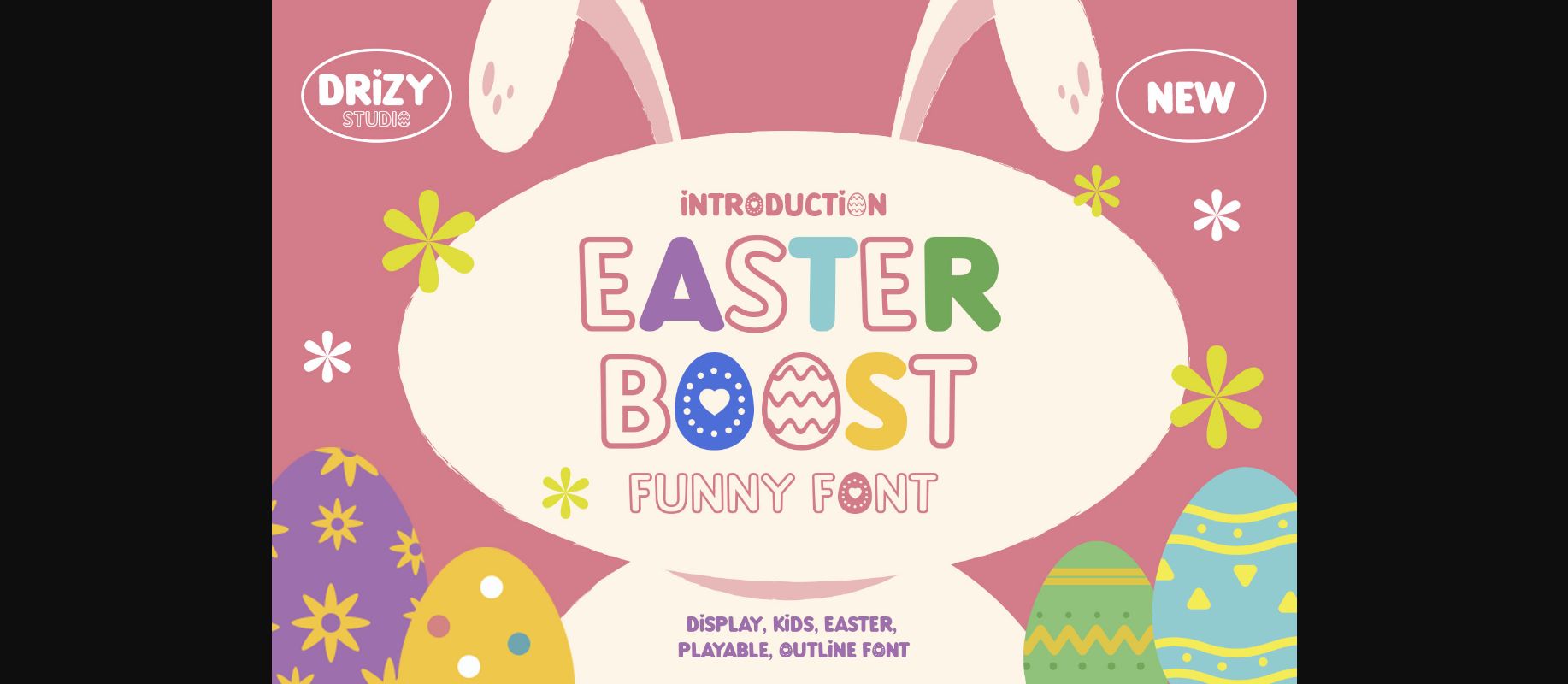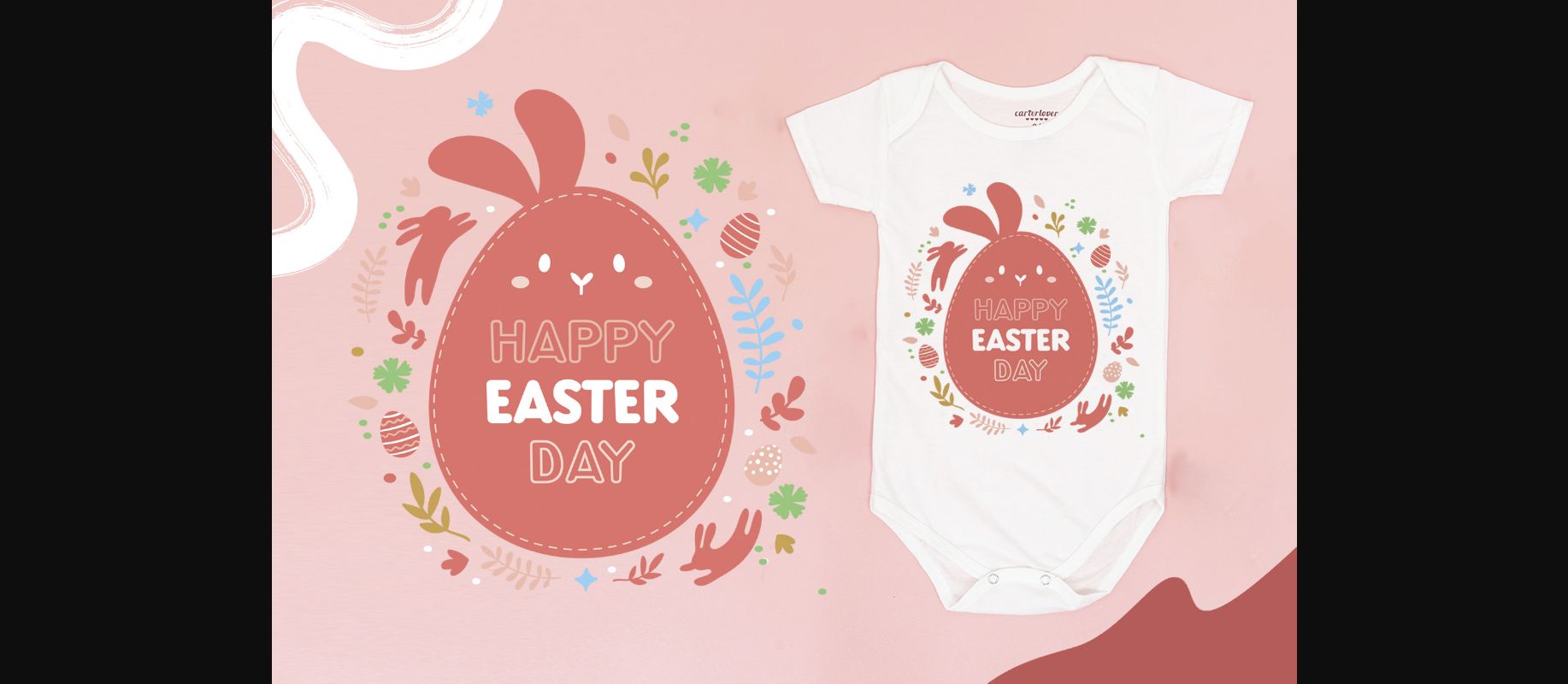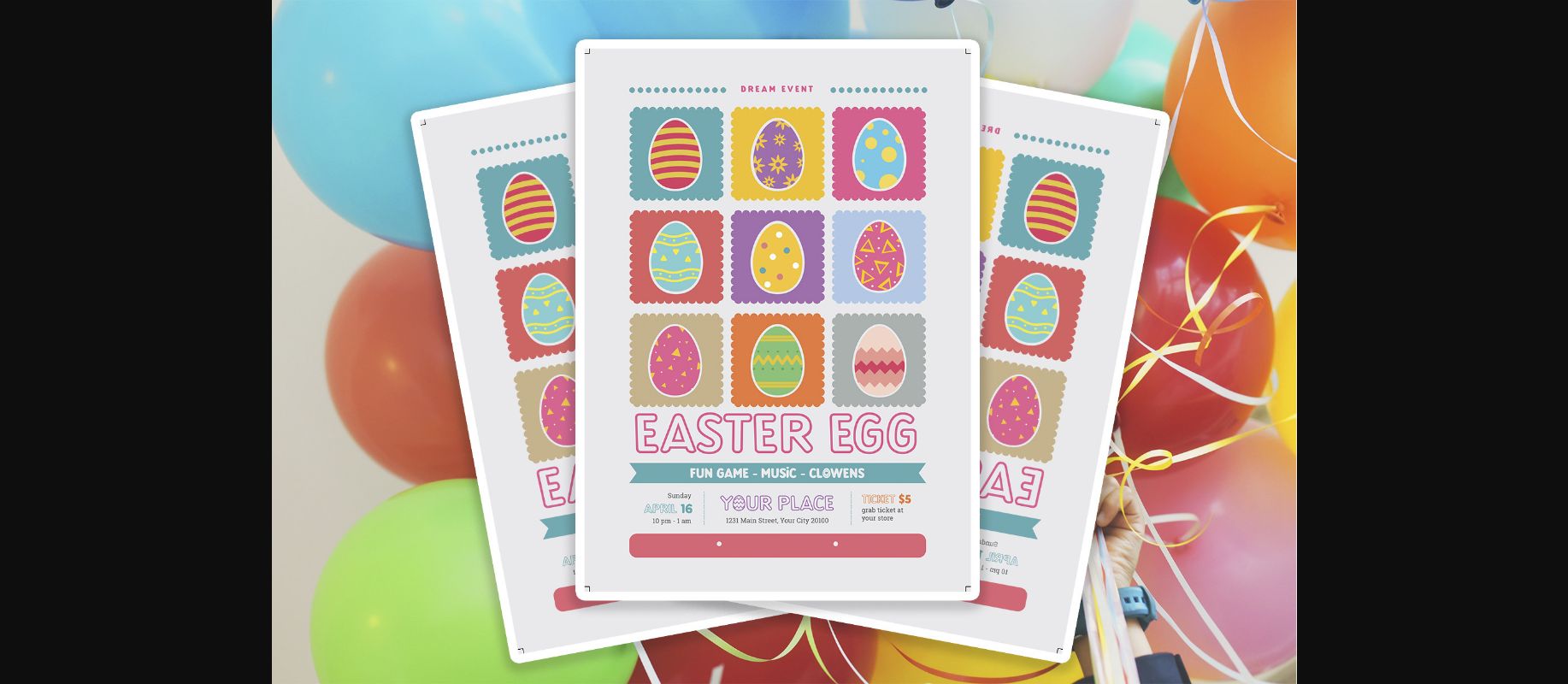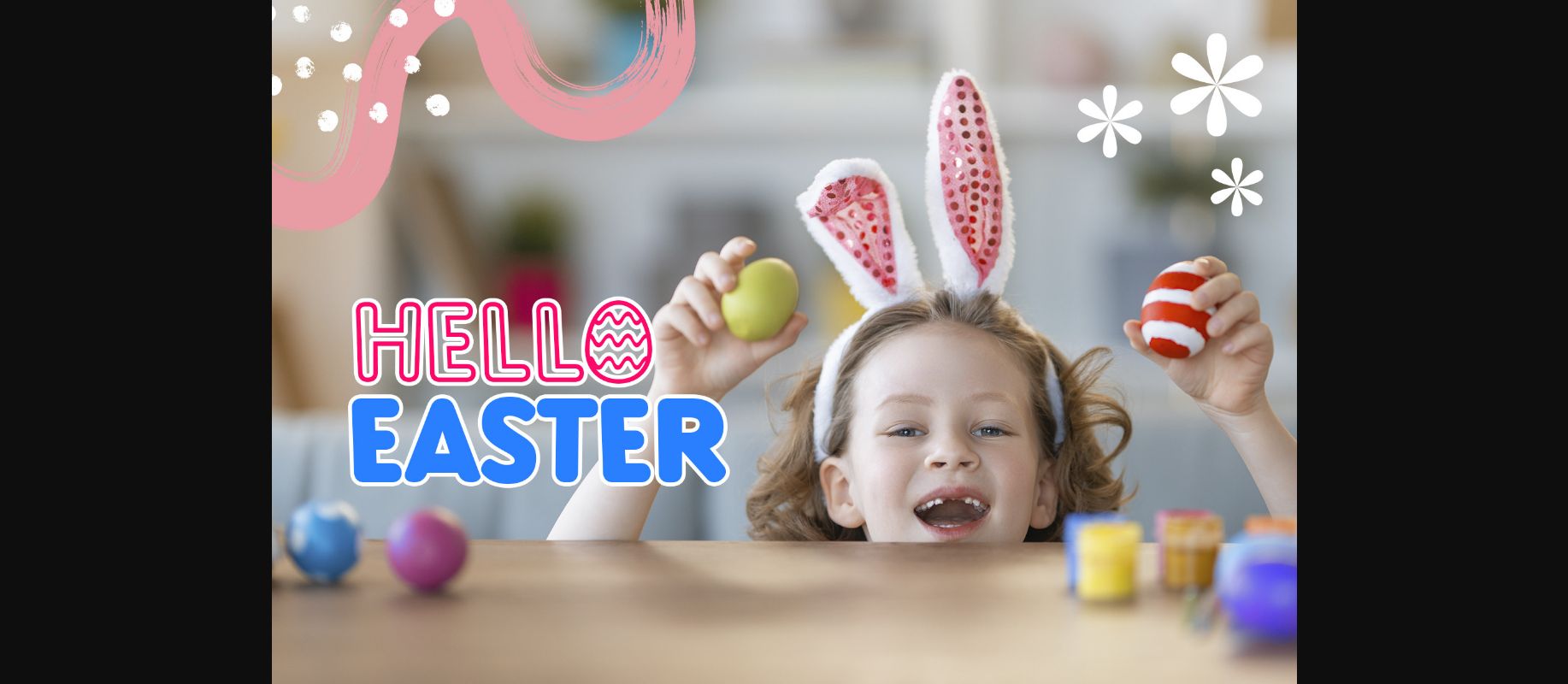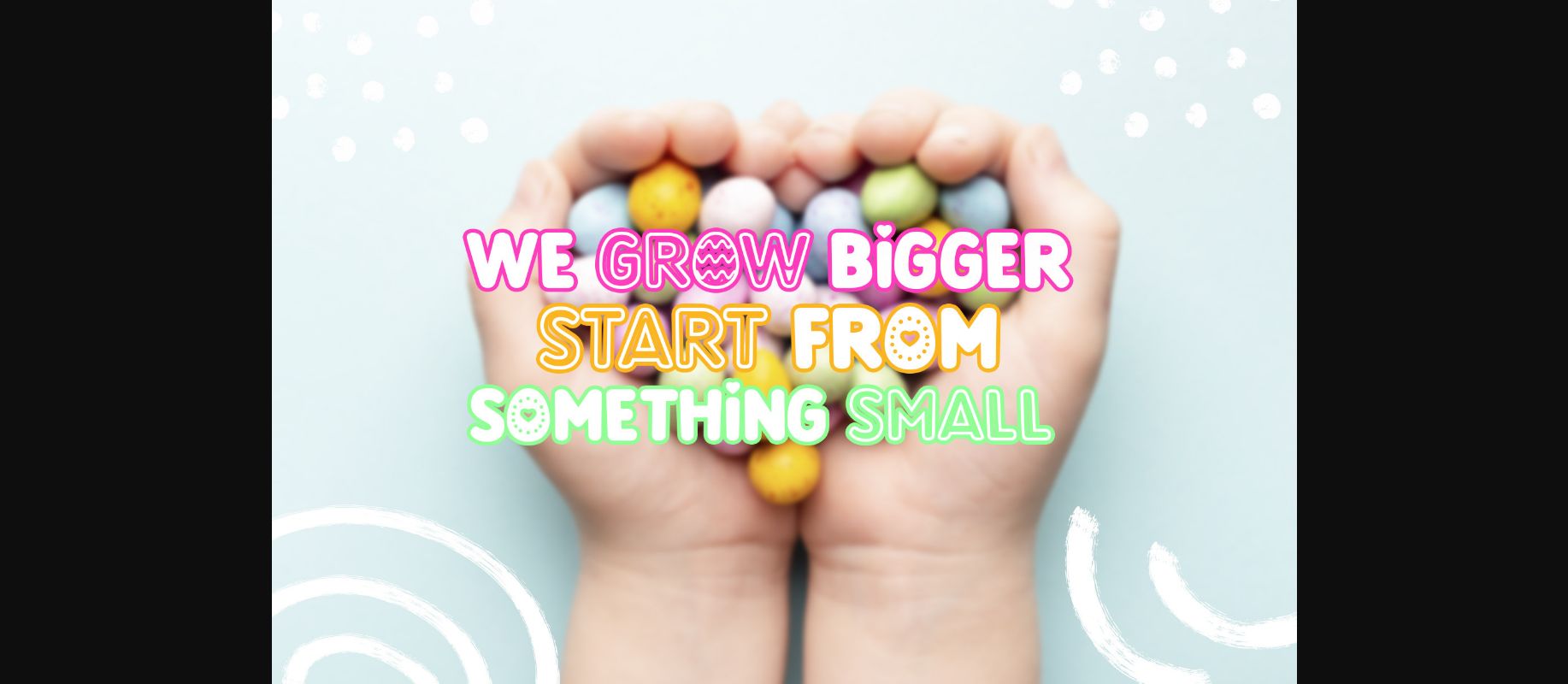
About Easterboost Font
Easterboost is a sweet decorative font. It will add an incredibly joyful touch to your designs. Add this beautiful font to your Easter creative ideas and notice how it makes them stand out!